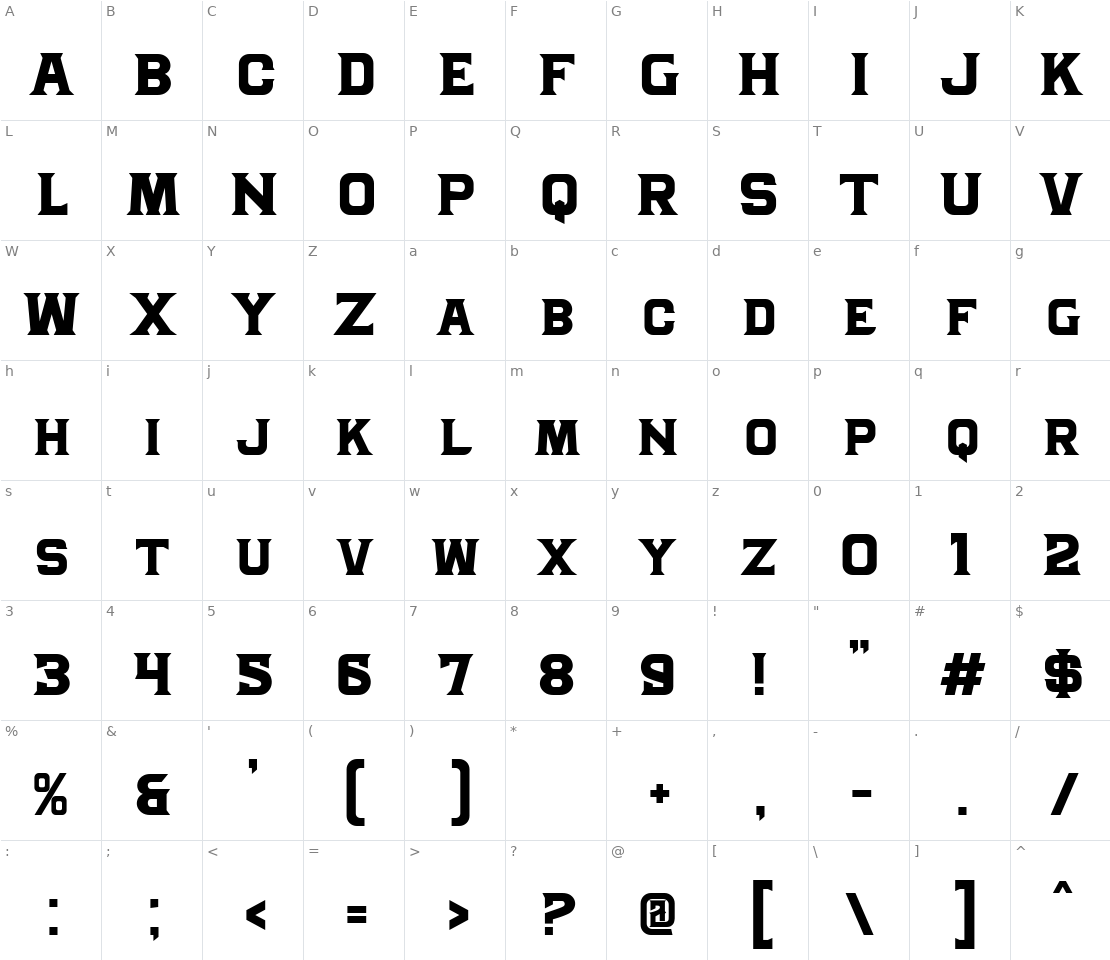
Granada
Granada is a heavy slab serif from Mikrojihad Inc. with condensed, small-caps letterforms that carry a rugged, western personality. The bold strokes and sturdy proportions give it a commanding weight on the page, pulling from the tradition of old frontier signage and wanted posters. Built for headlines, titles, and display work where you need type that plants its feet and doesn't budge.